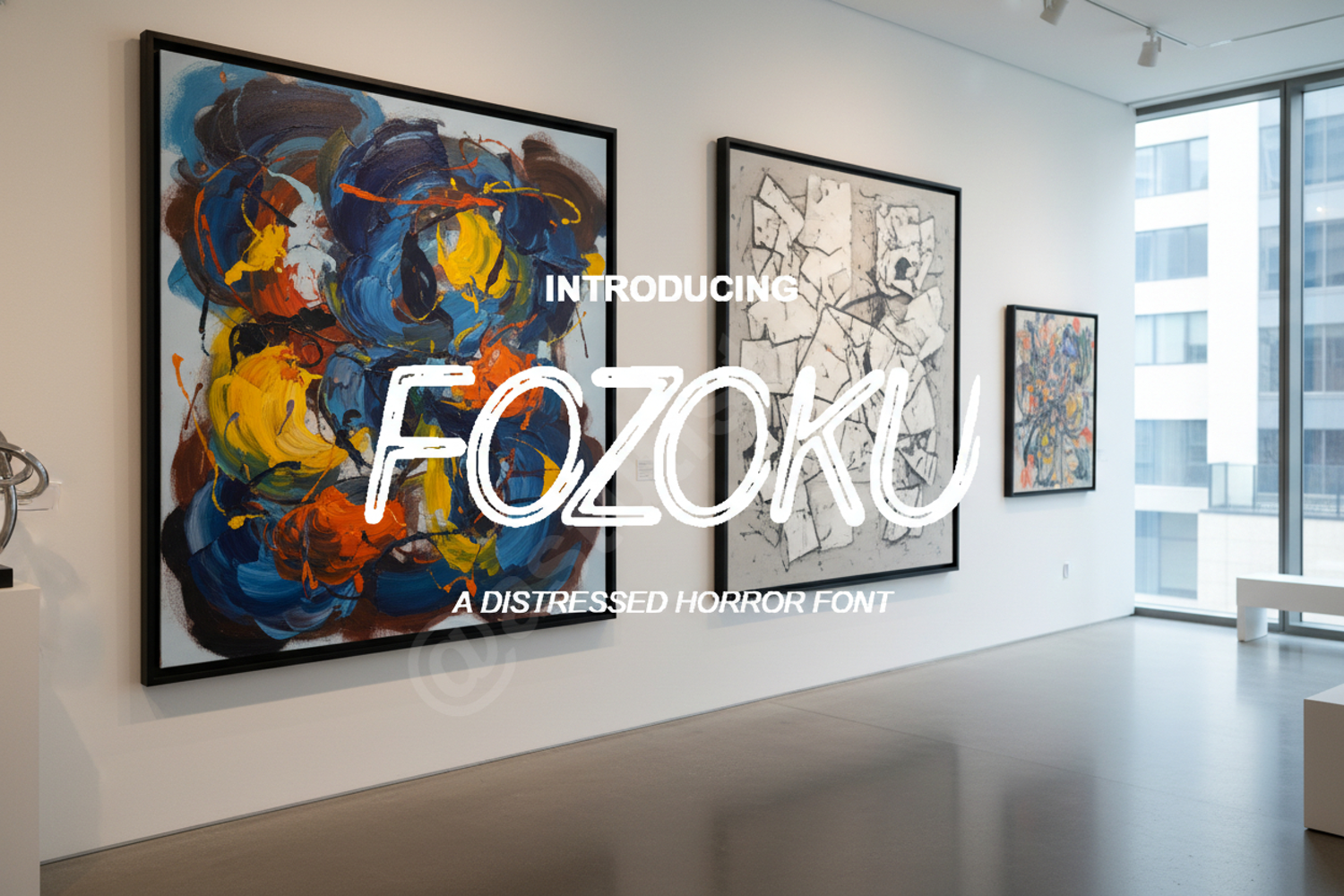
Fozoku - Modern Minimalist Display Typeface
Fozoku
Fozoku is a premium display font meticulously crafted to bring a touch of modern sophistication to your design projects. With its clean lines and balanced proportions, this typeface strikes the perfect balance between contemporary minimalism and bold character. Whether you are working on a high-end fashion brand or a sleek tech startup, Fozoku provides the versatility and professional polish your work deserves.